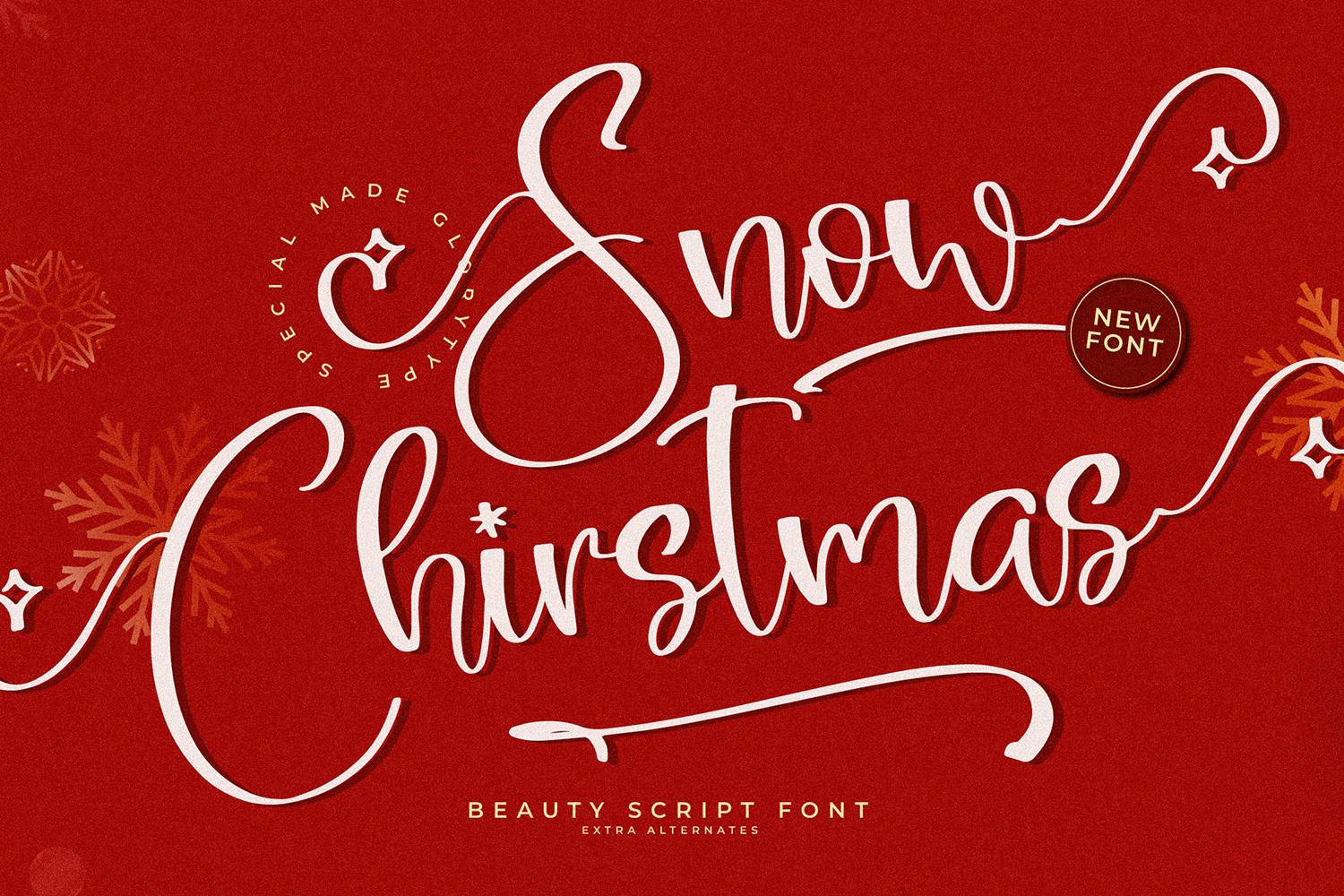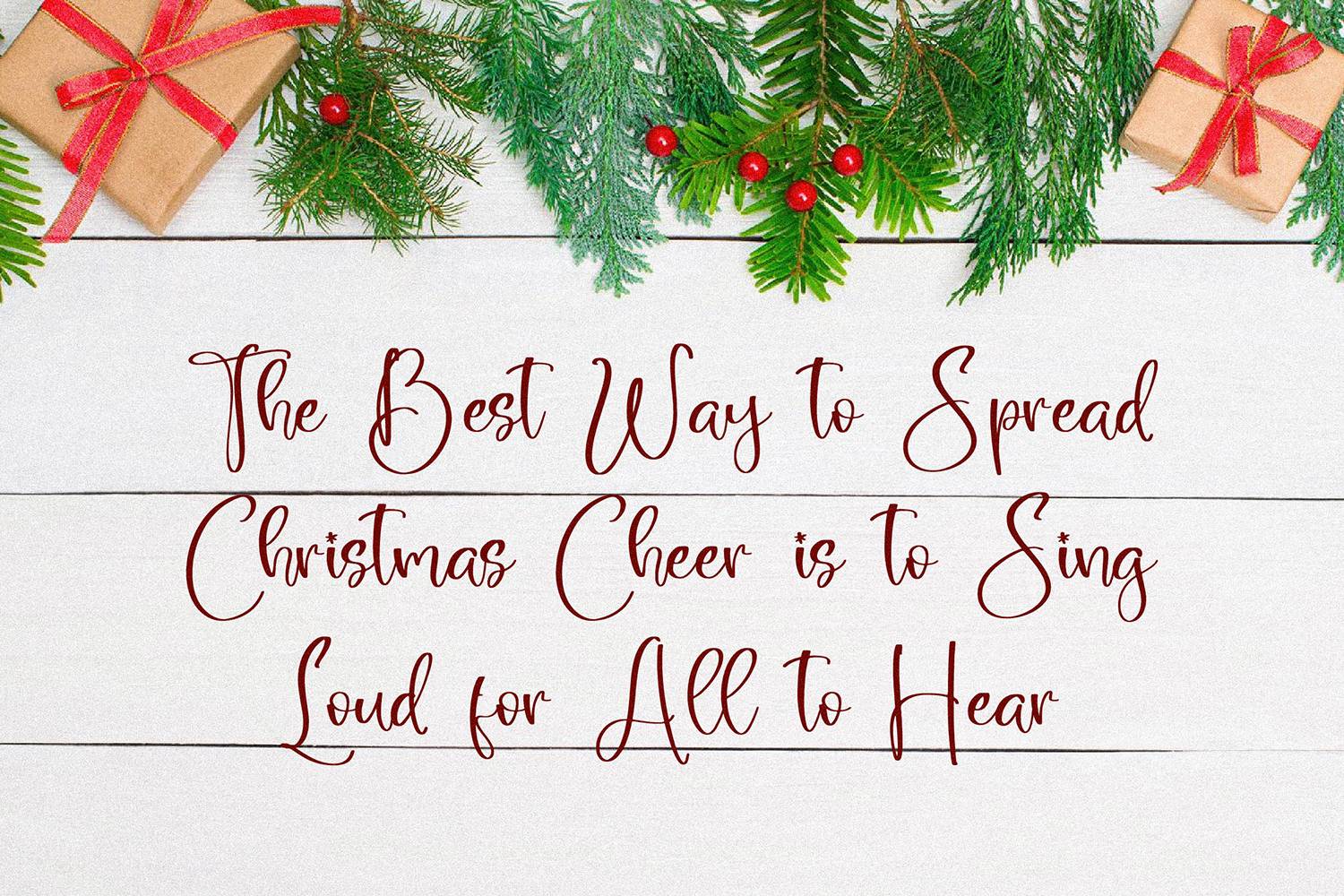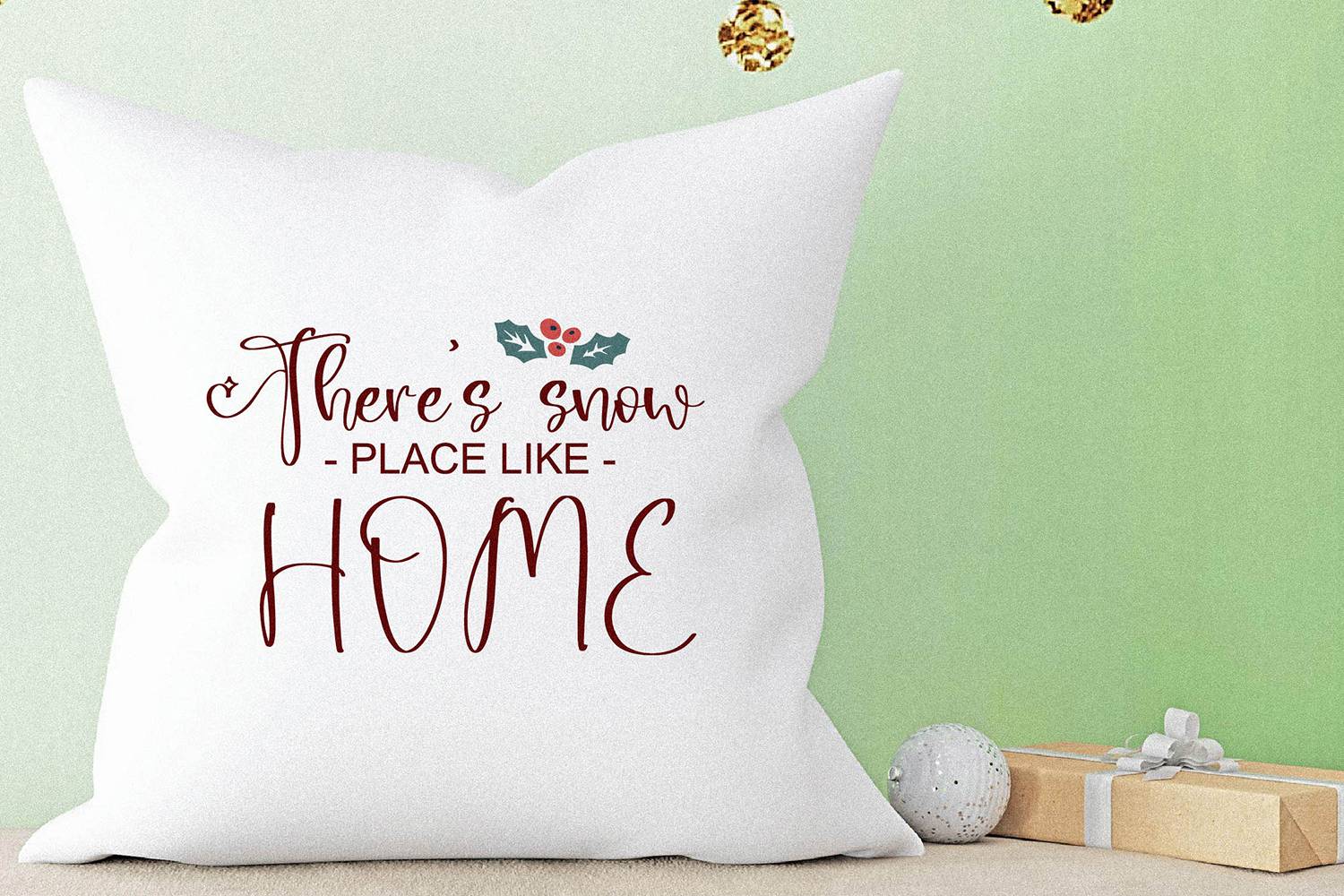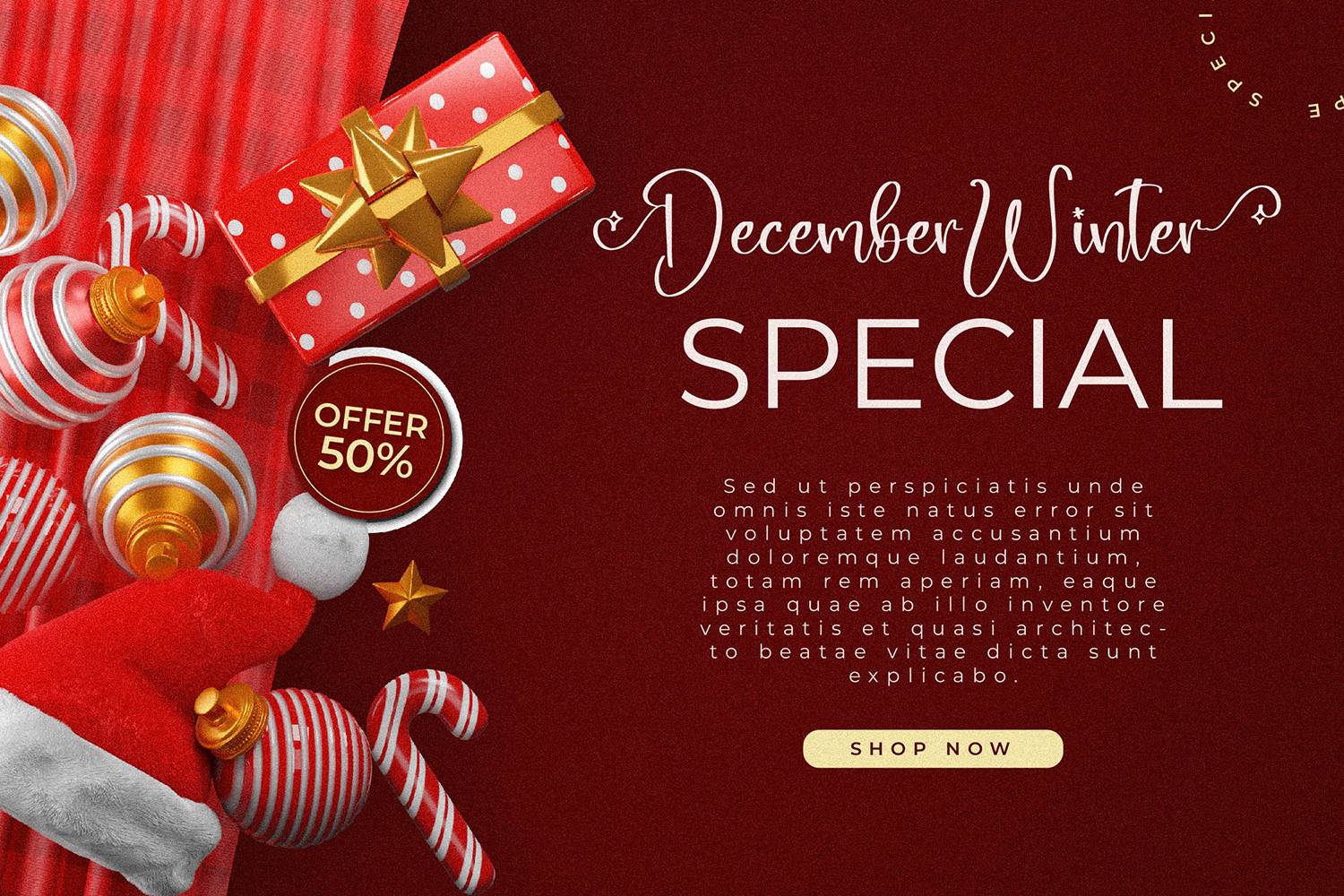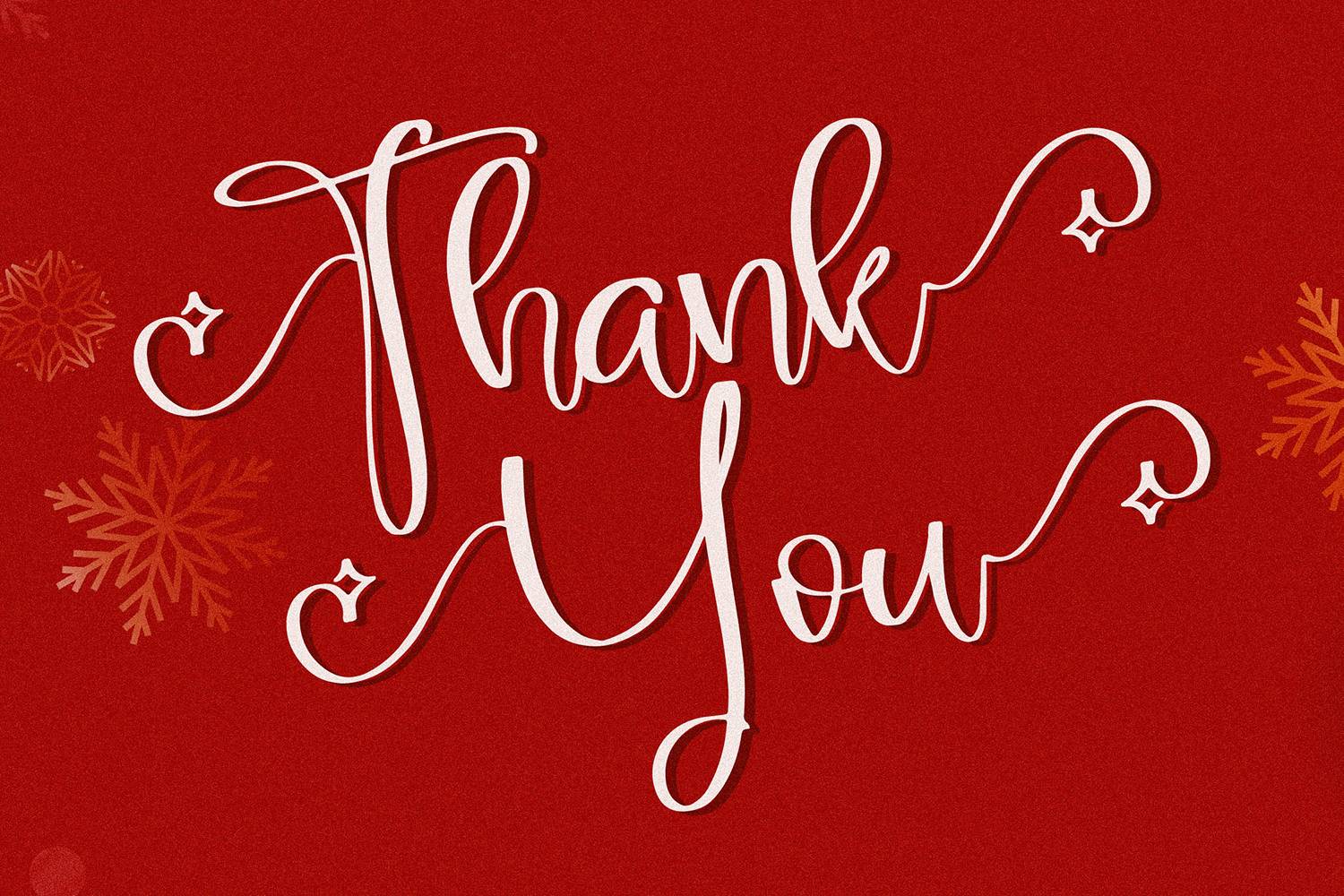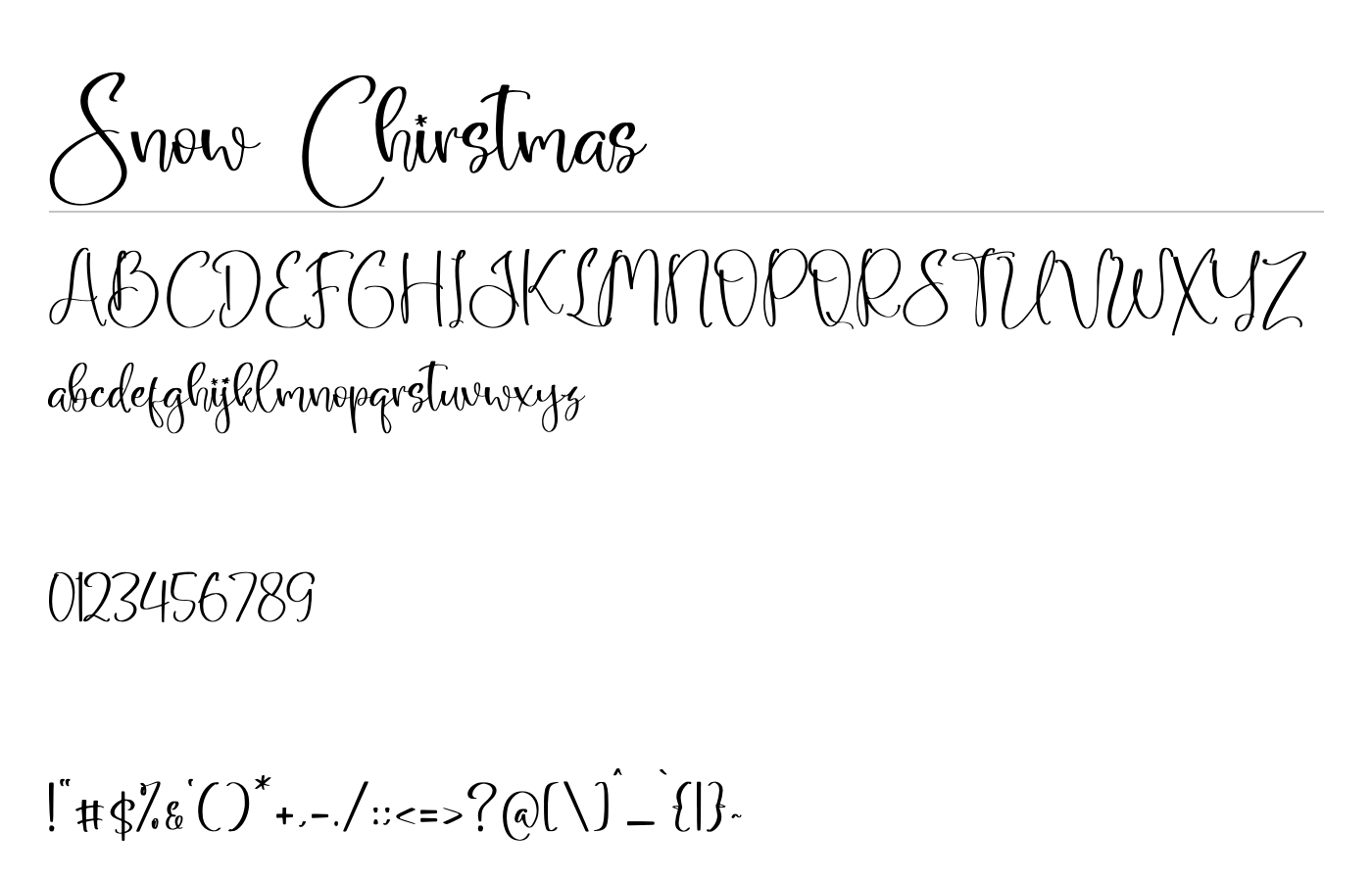
Snow Christmas Font is a delicate, hand-drawn script with a whimsical and festive feel, perfect for adding a personal, cheerful touch to holiday designs. Its tall, slender letterforms with playful curls and gentle stroke variations evoke warmth and creativity, making it ideal for Christmas cards, seasonal invitations, and festive branding that seeks a charming, joyful atmosphere. This font works best in headlines and decorative text where its lively character can shine.
Snow Chirstmas Font